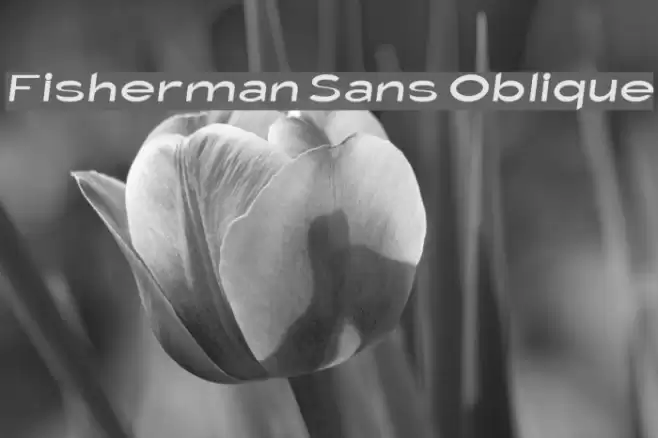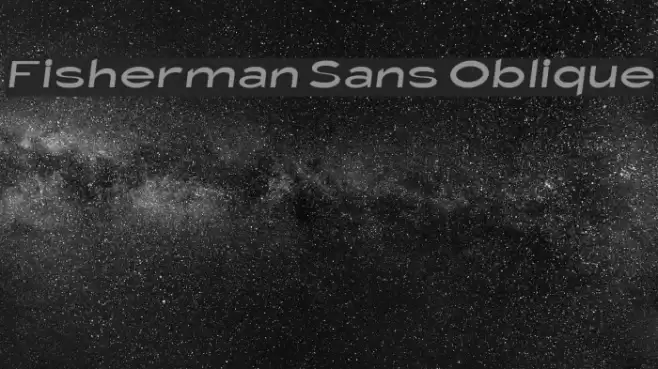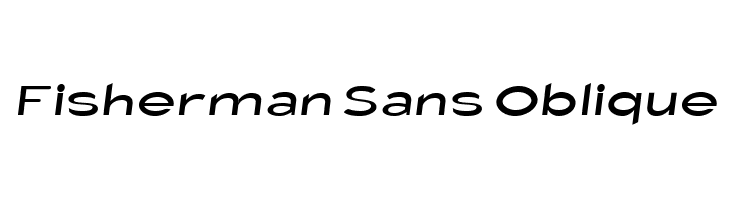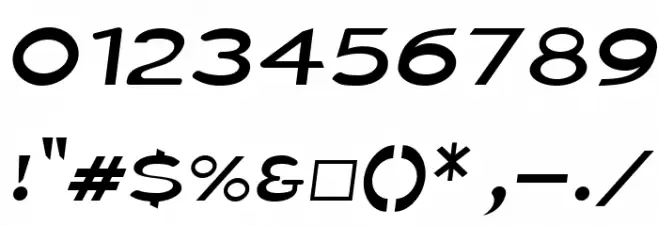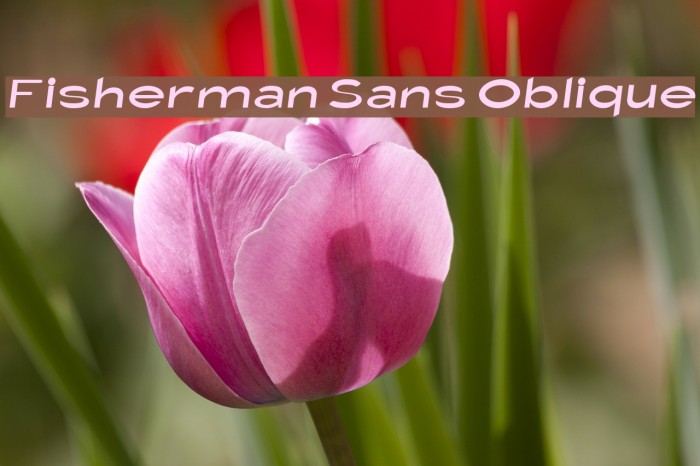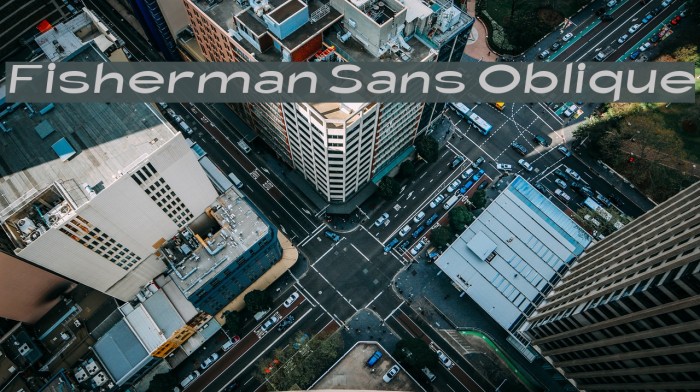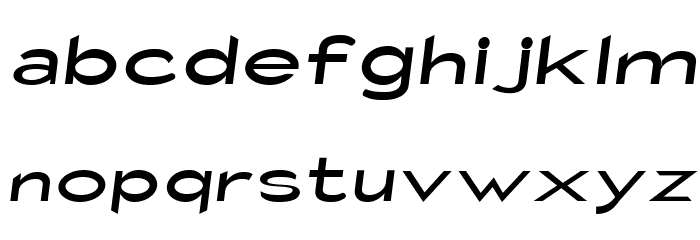
Fisherman Sans Oblique Font
Fisherman Sans Oblique Description
This font features a sleek, modern design with a distinct oblique style, giving it a dynamic and forward-leaning appearance. The characters are sans-serif, providing a clean and uncluttered look. The uppercase and lowercase letters maintain a consistent slant, enhancing the font's cohesive aesthetic. The numerals are bold and easily readable, while the special characters are well-integrated, maintaining the overall style. The font's design is versatile, making it suitable for a variety of applications where a contemporary and energetic feel is desired.
A modern, oblique sans-serif font with a dynamic and sleek design from Uncategorized fonts.
- Proposed Projects: Ideal for branding, advertising, and digital media projects that require a modern and energetic typeface.
- Use Case: Headlines, Logos, Digital Media